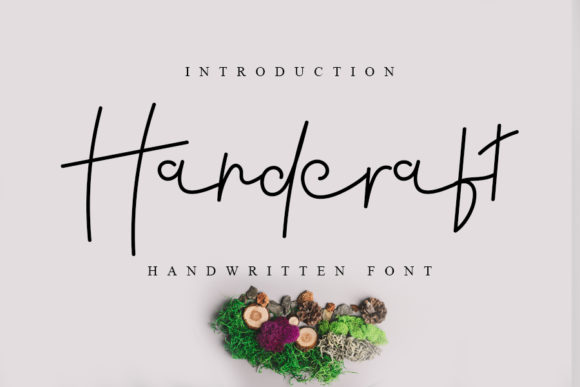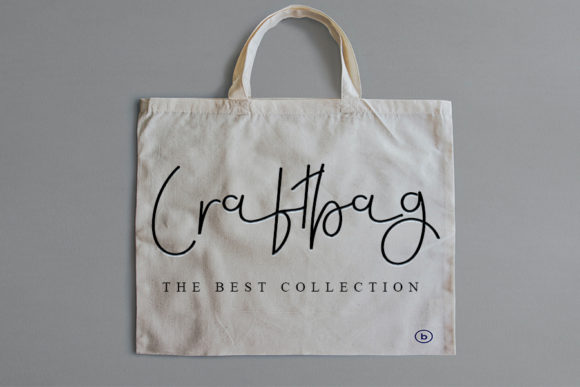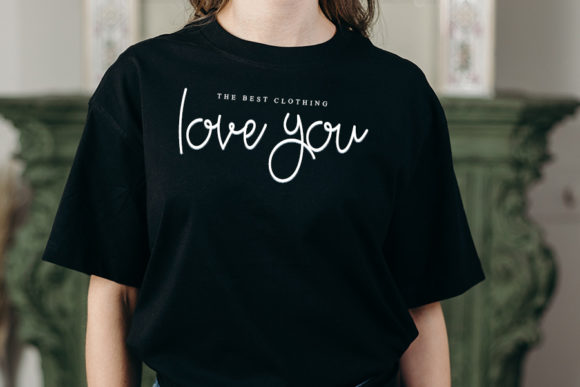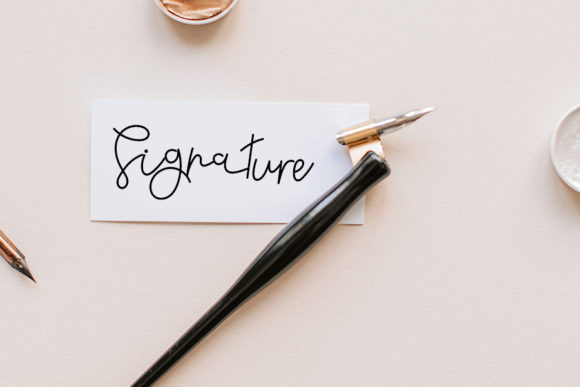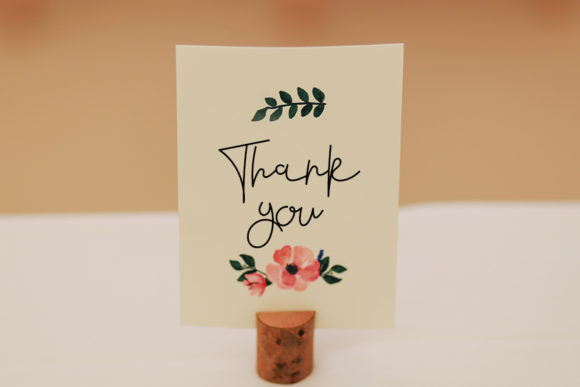
Handcraft Font
About Handcraft Font
Handcraft is a very beautiful, rich and trendy handwritten font. This font is suitable for your business and design needs such as making clothes designs, mockups, apparel, logos, wedding invitations, company brands and many others.